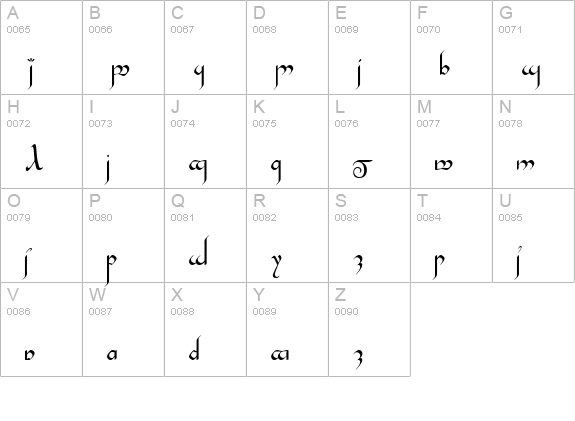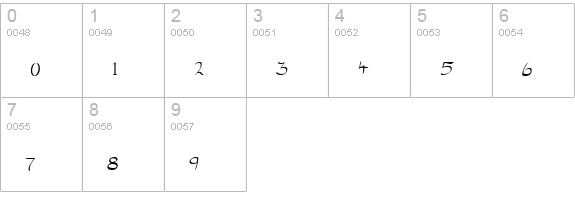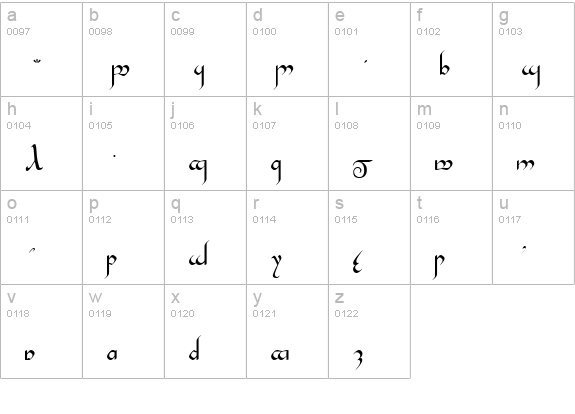
TengwarGandalf Medium Font Details
TengwarGandalf Medium is a balanced, medium-weight variant in the TengwarGandalf typeface family \xE2\x80\x94 well suited to sub-headlines, navigation, and balanced editorial work.
TengwarGandalf Medium font is a mesmerizing typeface that captures the essence of J.R.R. Tolkien's magical world. Inspired by the elven script, this font brings to life the intricate and elegant writing system used by the elves in Middle-earth. With its graceful curves and delicate strokes, TengwarGandalf Medium font exudes an aura of enchantment and mystique. Each character is meticulously crafted, offering a unique and captivating appearance that will transport you to a realm of fantasy and adventure. This font is versatile and can be used for a wide range of projects, from designing book covers and movie posters to creating stunning logos and website headers. Its timeless appeal and evocative nature make it an excellent choice for any creative endeavor. And the best part? TengwarGandalf Medium font is freely available to download at FontsMarket.com. This means that you can bring a touch of Tolkien's magic into your designs without any cost. Whether you are a professional designer or a Tolkien enthusiast, this font is a must-have addition to your collection. So, don't miss out on the opportunity to unleash the power of TengwarGandalf Medium font in your creative projects. Download it for free and embark on a journey through the enchanting world of Middle-earth. Let your imagination soar and create designs that will captivate and inspire others.